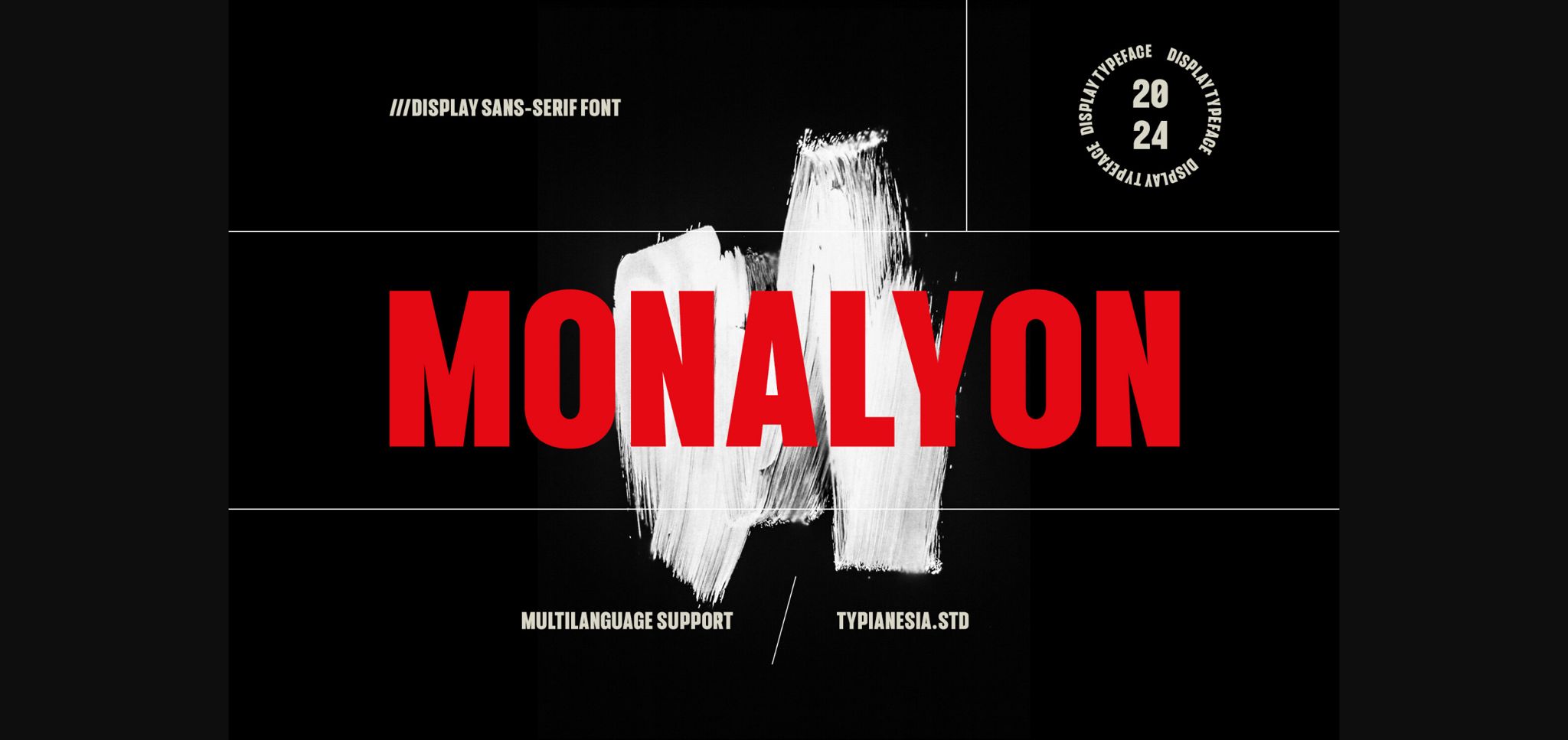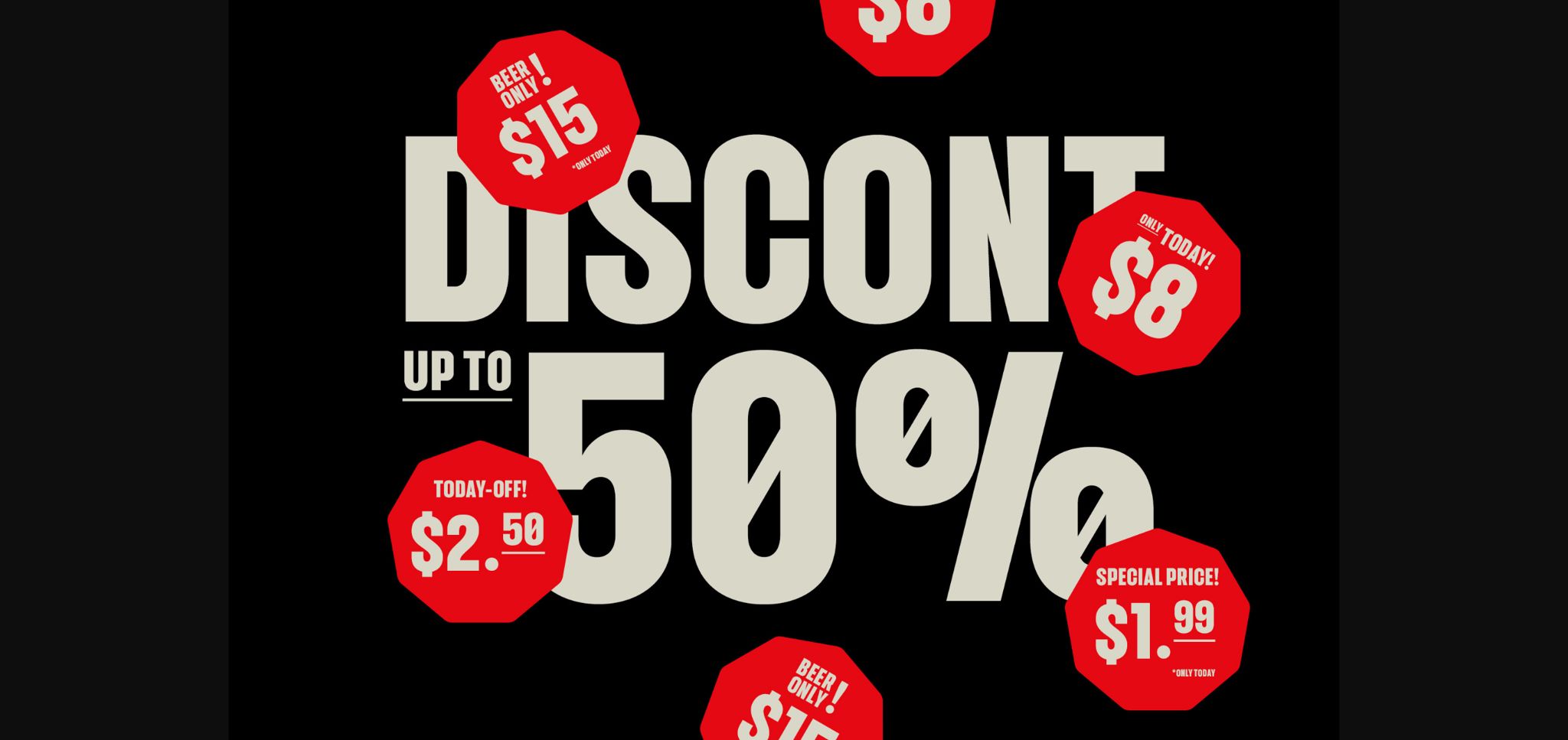
About Monalyon Font
Monalyon is a modern display sans serif font, characterized by clean lines and contemporary design. Its makes an excellent choice for projects that demand a bold and impactful visual presence.Tailored for display purposes, Monalyon is perfect for headlines, banners, logo design, brand identity, website headers and titles, printed materials, digital and print advertisements, packaging design, menu design, social media graphics, corporate presentations, event promotions, app interfaces and any project where a sans-serif font can provide a strong and modern.